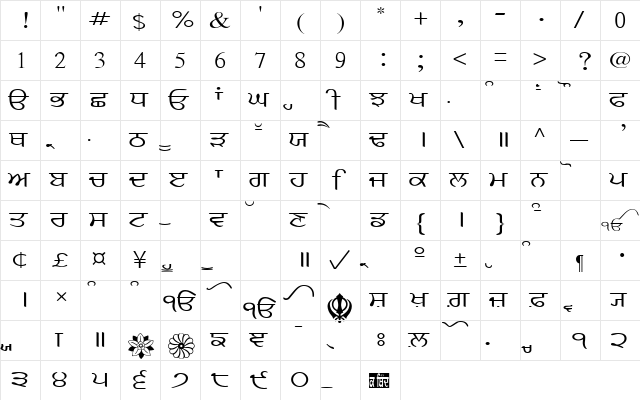
SamtolKalmi Regular
Design Context for SamtolKalmi Typeface
SamtolKalmi takes a measured approach to typography — its balanced proportions and neutral character make it a reliable workhorse for both digital and print work.